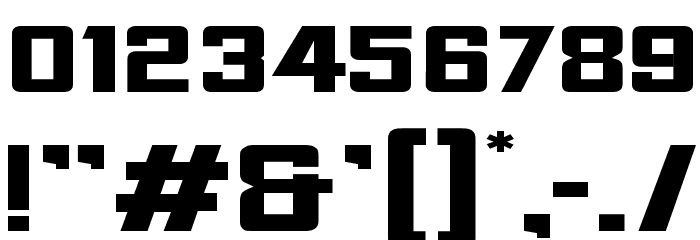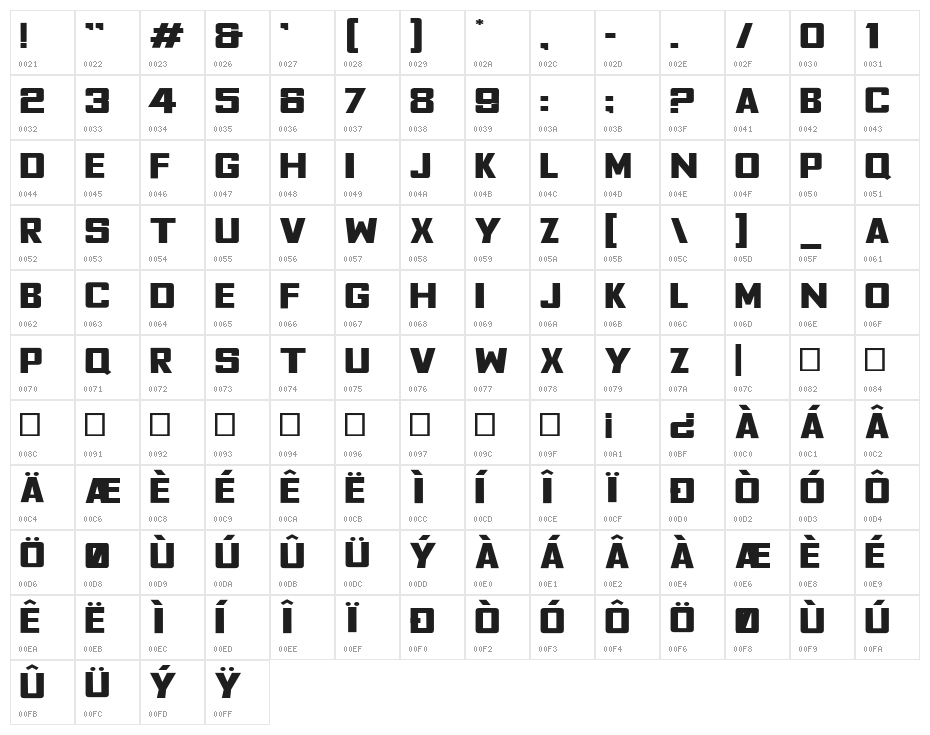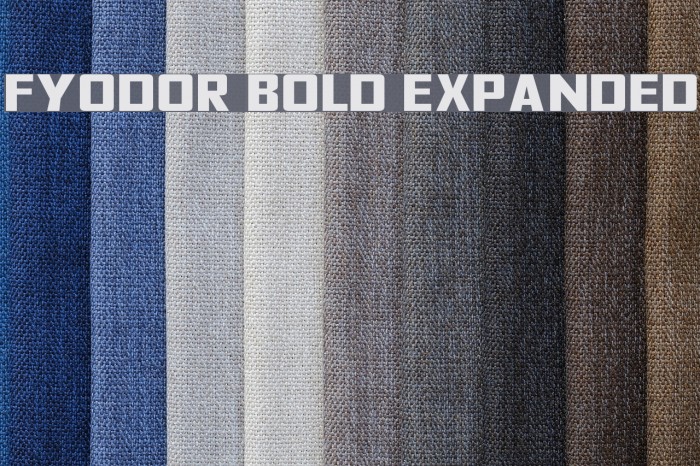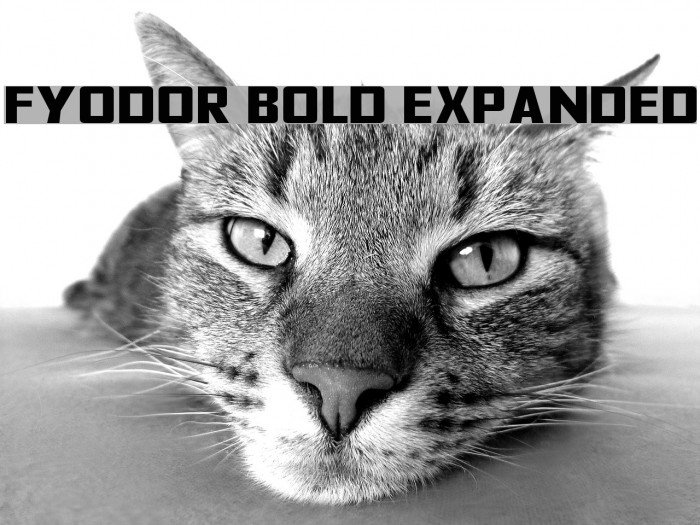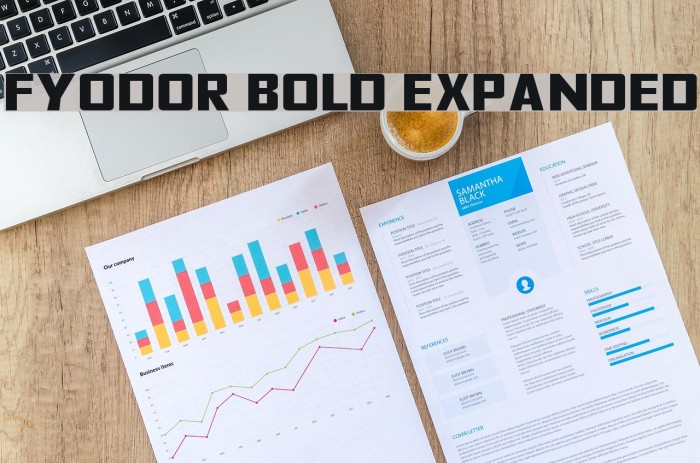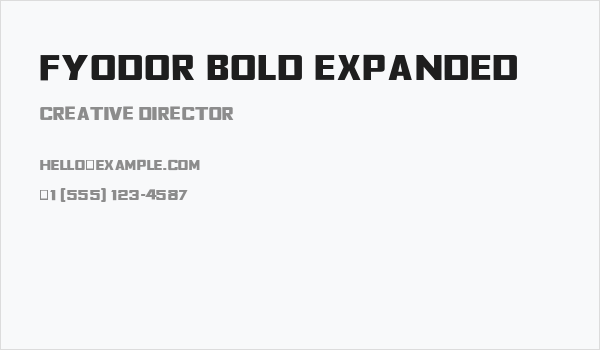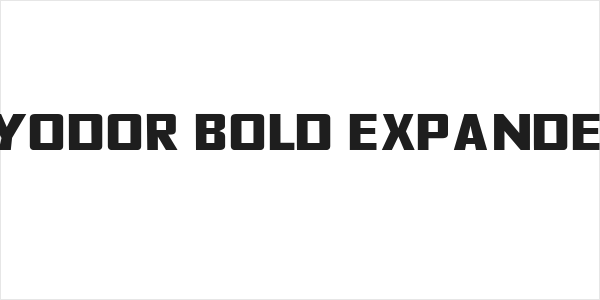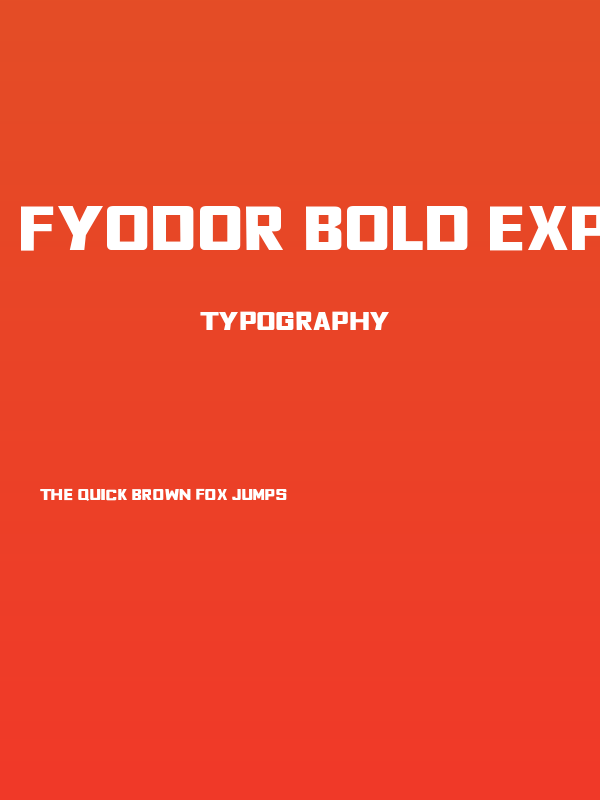
Fyodor Bold Expanded Font
Fyodor Bold Expanded Description
This font features a bold and expanded style, characterized by thick, uniform strokes that convey a strong and impactful presence. The uppercase and lowercase letters maintain a consistent width, enhancing readability and creating a cohesive look. The numerals are equally bold, ensuring they stand out in any context. Special characters are designed with the same boldness, making them suitable for attention-grabbing designs. The overall appearance is modern and assertive, ideal for projects that require a strong visual impact.
| Proposed Projects | Ideal for headlines, posters, branding, and any project needing a strong visual impact. |